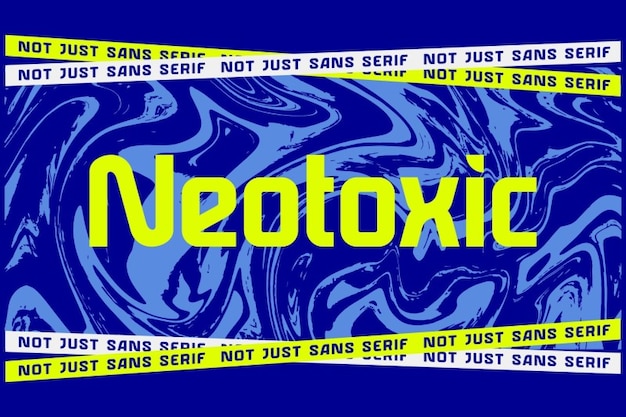
Neotoxic Font
The font that's a wild blend of modern flair, psychedelic vibes, and comic-book energy, creating a unique visual experience that's out of this world! Its design captures the essence of contemporary edge with a trippy twist. Perfect for projects seeking a collision of modernity and kaleidoscopic creativity. Get ready to warp reality with "Neotoxic"!